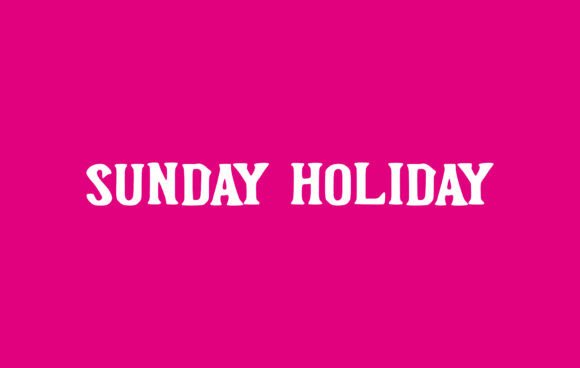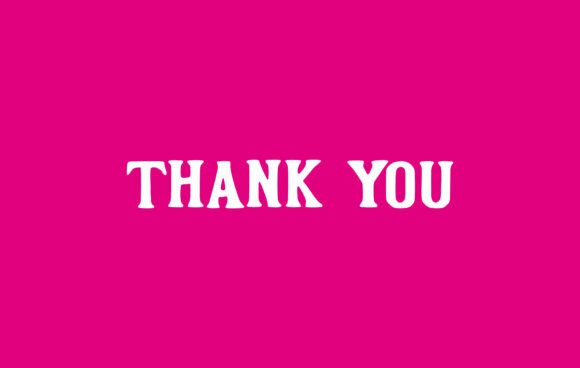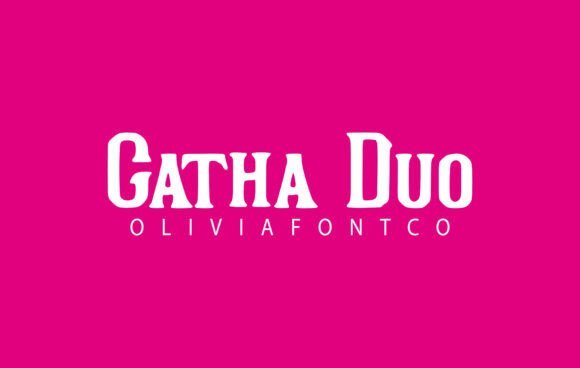
Introduction to Gatha Duo Font
Gatha Duo is an authentic serif font with a romantic touch.
Expertly designed to be a true favorite, this font has the potential to take your creative ideas to the highest level .
Key Features of Gatha Duo Font
Why Choose Gatha Duo Font?